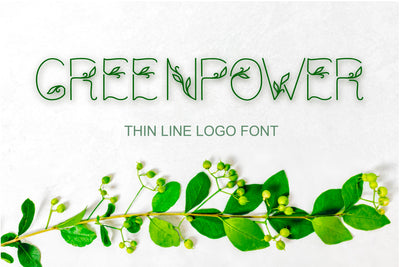
Decorative font. GREENPOWER - THIN LINE LOGO FONT. ECO LEAF Font.
GREENPOWER - thin line uppercase font with floral and leaf motives
The features is only uppercase. This font is Display font.
IT is suitable for feminine business branding, eco-friendly and minimalistic art, social media design. The font works great for craft products branding and packaging (organic cosmetics and food, jewelry, handmade soap ect.)
This Botanical romantic font, suitable for any projects such as: logos, branding projects, homeware designs, mugs, quotes, posters, shopping bags, t-shirts, book covers, name card, invitation cards, greeting cards, label, photography, watermark, special events, and all your other projects that need a beautiful font taste.